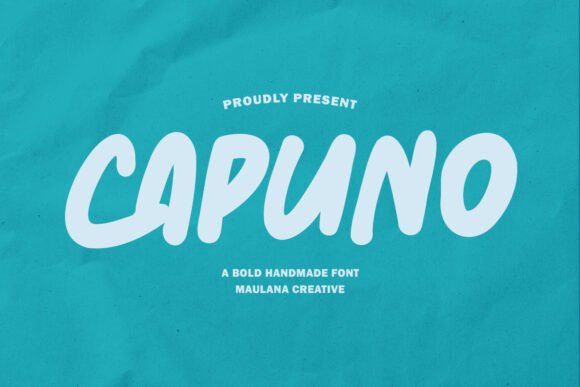
Introducing Capuno Font: A Bold Handmade Handwritten Font
Are you looking for a font that can add a personal touch to your designs? Look no further than Capuno Font, a bold handmade handwritten font that is perfect for a wide range of creative projects. With its natural and unique style, Capuno Font is incredibly versatile and can be used to create stunning designs that stand out from the crowd.
Key Features of Capuno Font
- Bold and Handmade: Capuno Font is a bold handmade handwritten font that is perfect for creating eye-catching designs.
- Natural and Unique Style: The font has a natural and unique style that makes it incredibly fitting to a large pool of designs.
- Highly Versatile: Capuno Font can be used for a wide range of creative projects, from branding and advertising to packaging and digital media.
- Easy to Read: Despite its bold style, Capuno Font is easy to read and can be used for both headings and body text.
Uses for Capuno Font
Capuno Font is incredibly versatile and can be used for a wide range of creative projects, including:
- Branding and Advertising: Use Capuno Font to create eye-catching logos, posters, and advertisements that stand out from the crowd.
- Packaging Design: Add a personal touch to your product packaging with Capuno Font, perfect for labels, tags, and more.
- Digital Media: Use Capuno Font to create stunning digital media, including social media graphics, blog posts, and more.
- Wedding and Event Design: Create beautiful wedding invitations, event flyers, and more with Capuno Font.
Benefits of Using Capuno Font
There are many benefits to using Capuno Font in your designs, including:
- Unique and Eye-Catching: Capuno Font is a bold and unique font that will help your designs stand out from the crowd.
- Highly Versatile: The font can be used for a wide range of creative projects, making it a great addition to any designer’s toolkit.
- Easy to Read: Despite its bold style, Capuno Font is easy to read and can be used for both headings and body text.
- Time-Saving: With Capuno Font, you can create stunning designs in a fraction of the time it would take with other fonts.
Tips for Using Capuno Font
Here are a few tips for using Capuno Font in your designs:
- Use it Boldly: Capuno Font is a bold font, so don’t be afraid to use it boldly in your designs.
- Experiment with Colors: Try pairing Capuno Font with different colors to create stunning contrast and visual interest.
- Mix and Match: Don’t be afraid to mix and match Capuno Font with other fonts to create a unique and eye-catching design.
- Pay Attention to Spacing: Make sure to pay attention to spacing when using Capuno Font, as it can be a bold font.
In conclusion, Capuno Font is a bold handmade handwritten font that is perfect for a wide range of creative projects. With its natural and unique style, Capuno Font is incredibly versatile and can be used to create stunning designs that stand out from the crowd. Whether you’re a designer, artist, or DIY enthusiast, Capuno Font is a great addition to any creative toolkit.